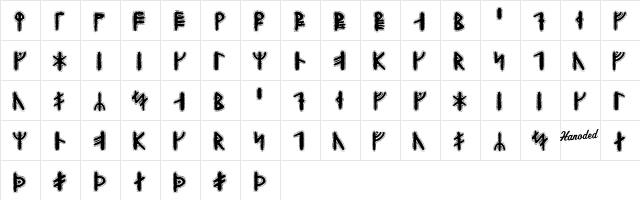
Yggdrasil Runic Regular
| Foundry | David Kerkhoff |
| Designer | David Kerkhoff |
Design Context for Yggdrasil Runic Typeface
Yggdrasil Runic is a composed and adaptable typeface that performs quietly and consistently across a wide range of design contexts.